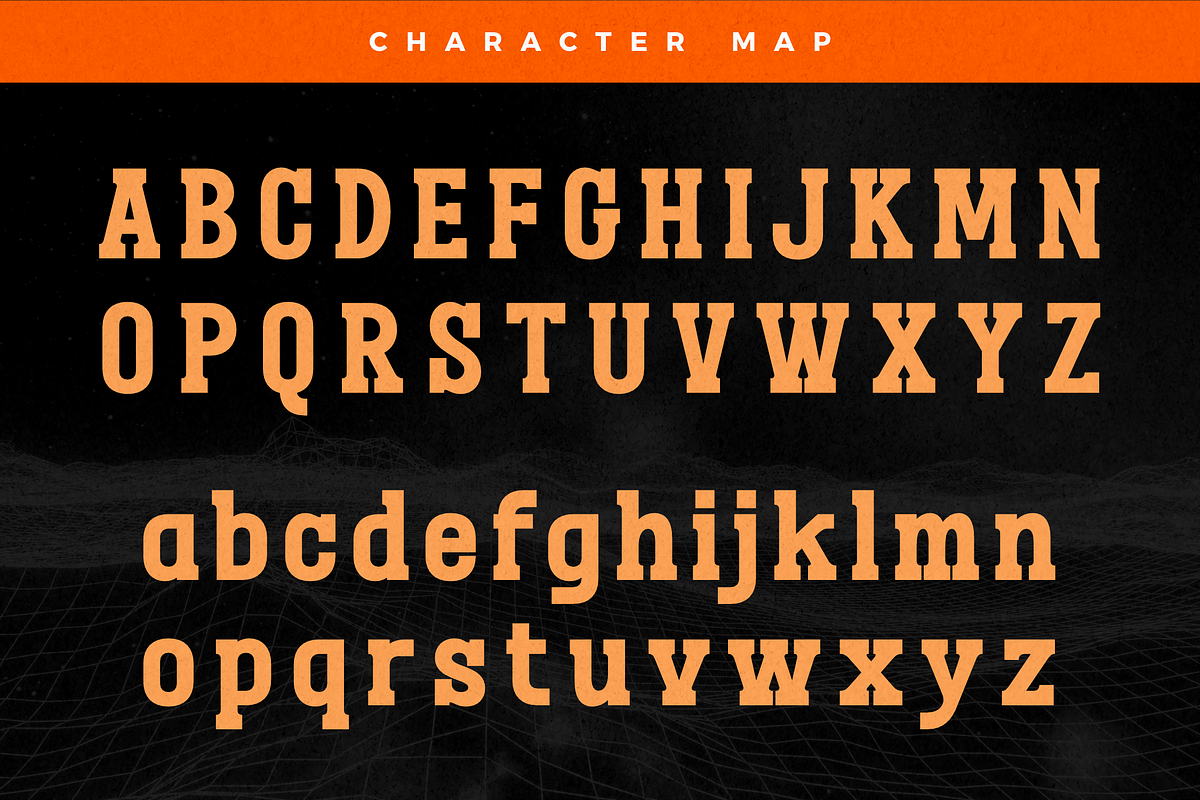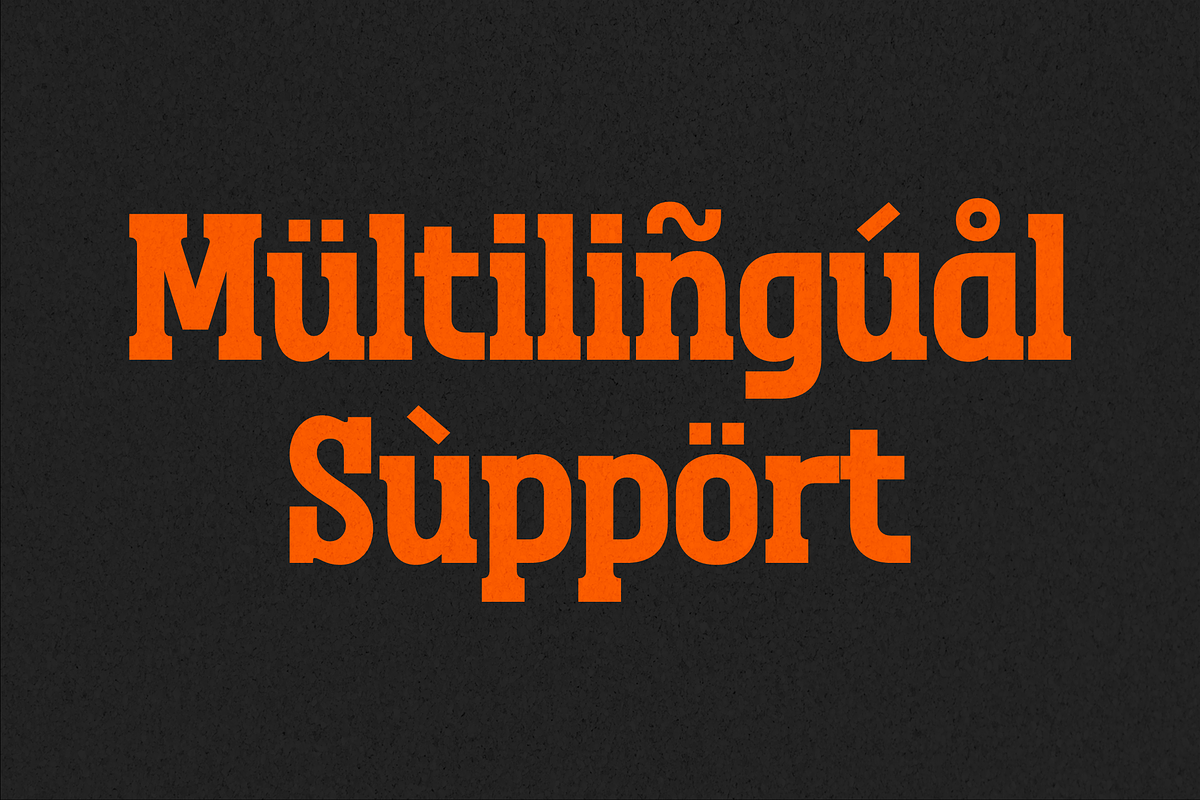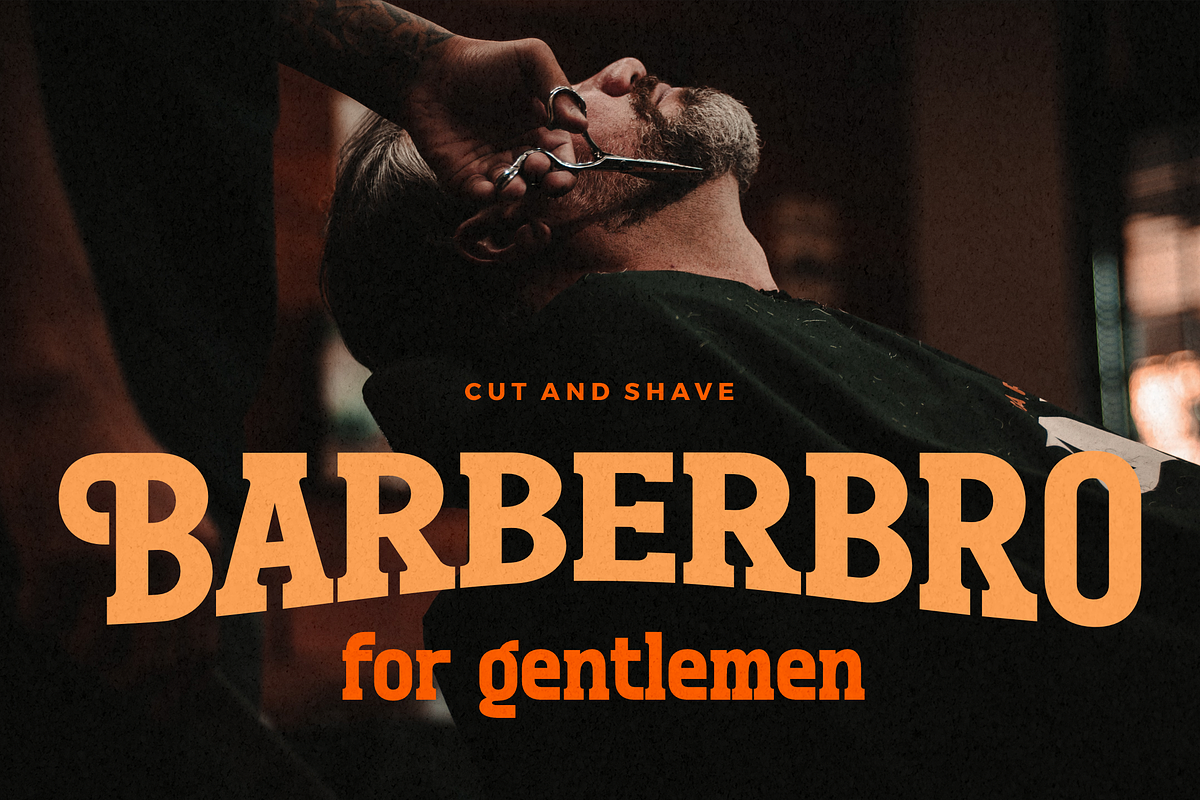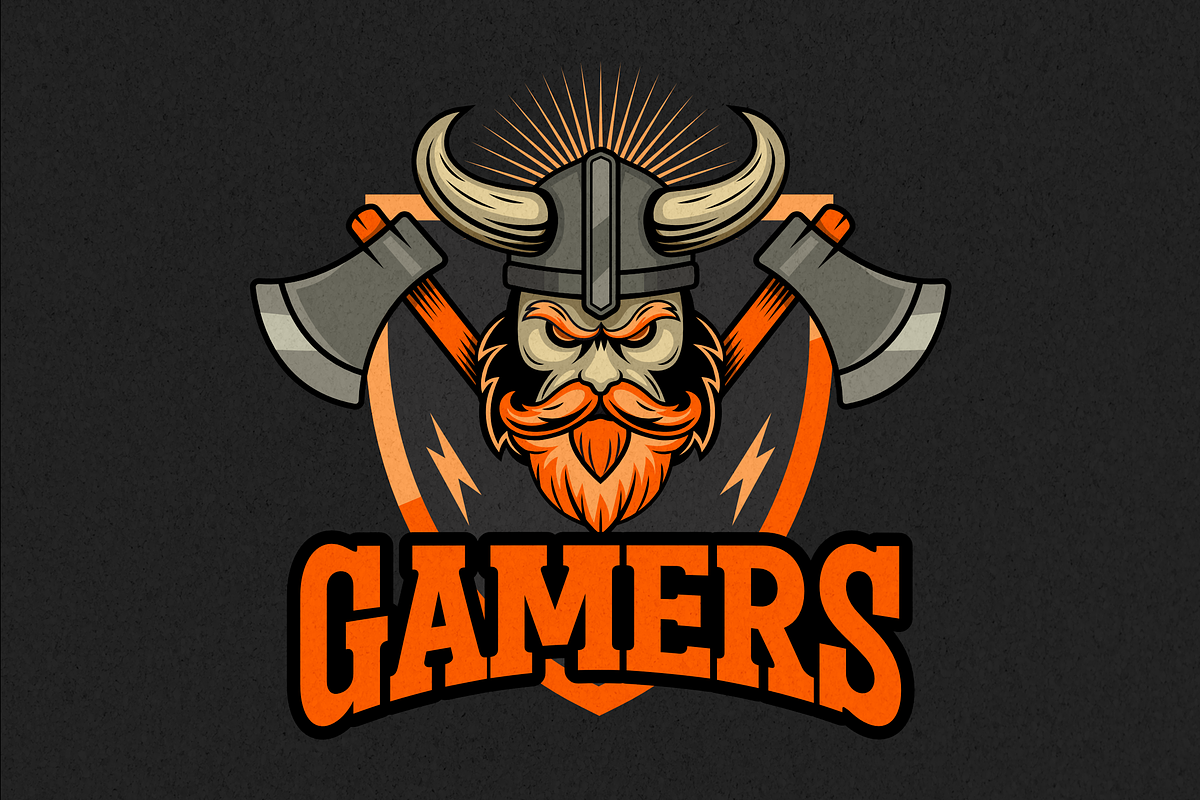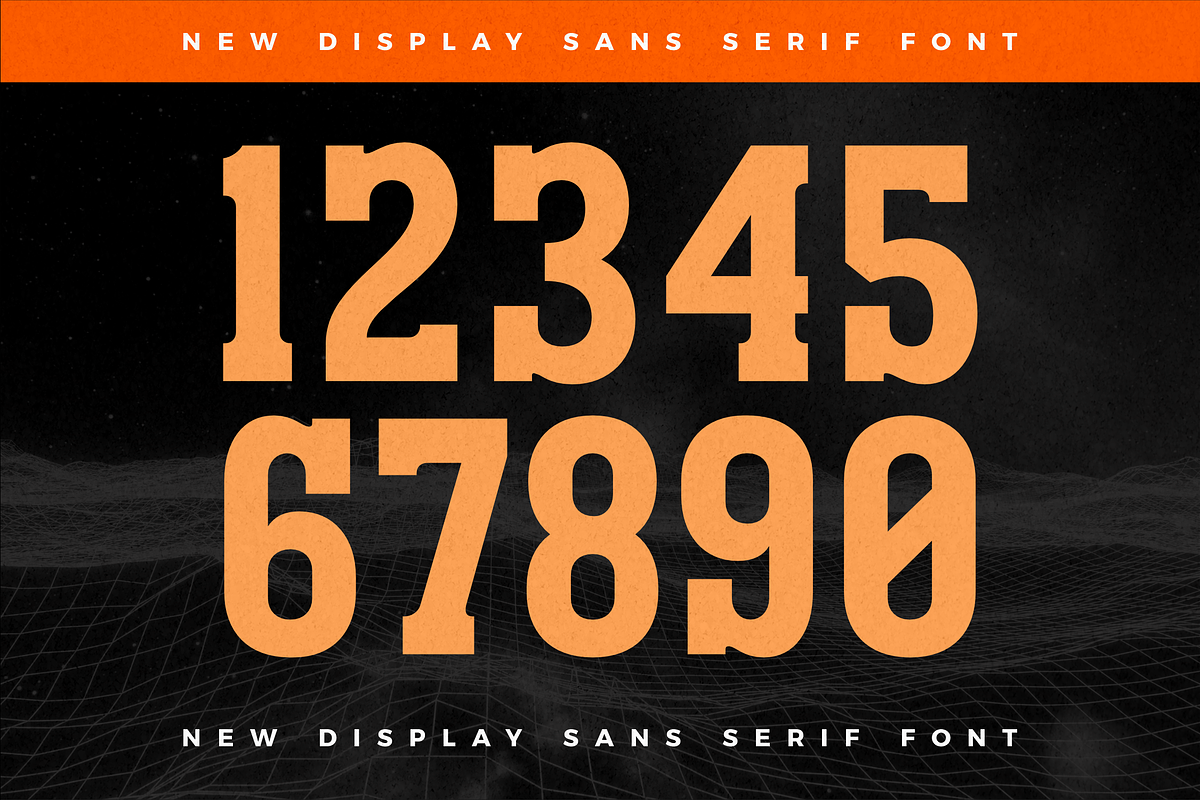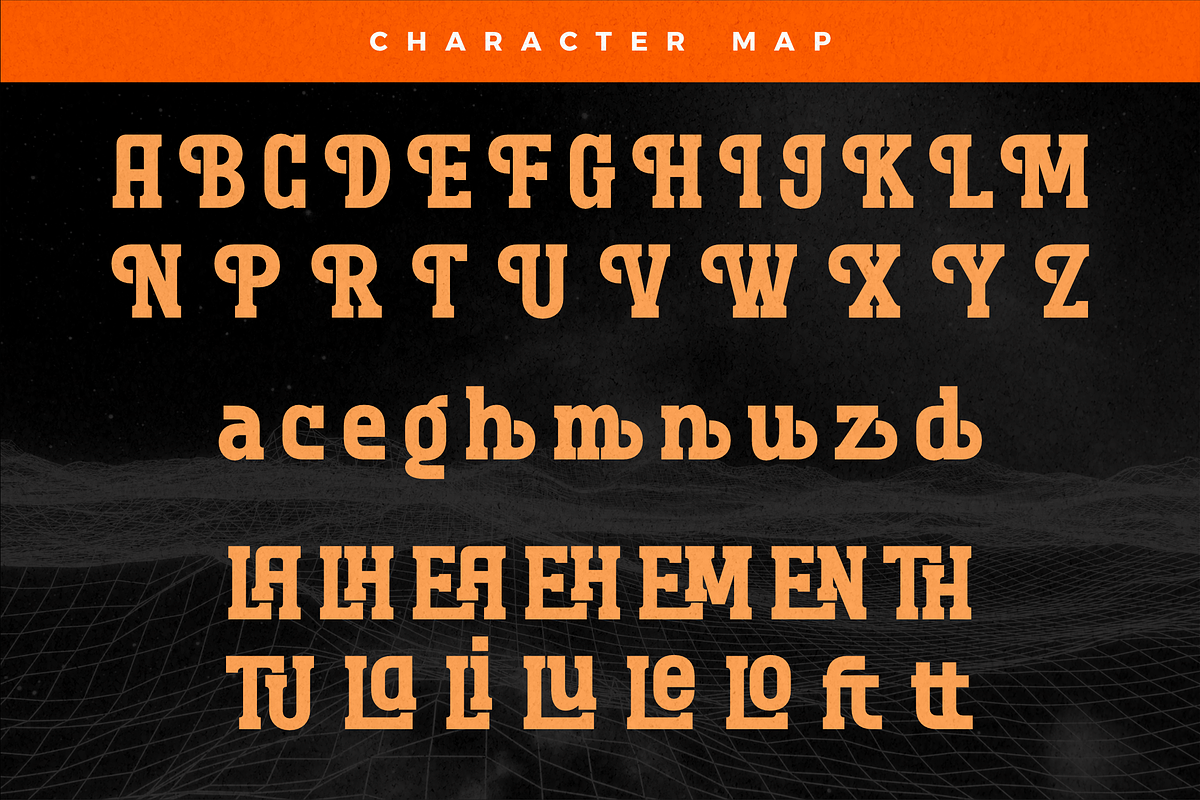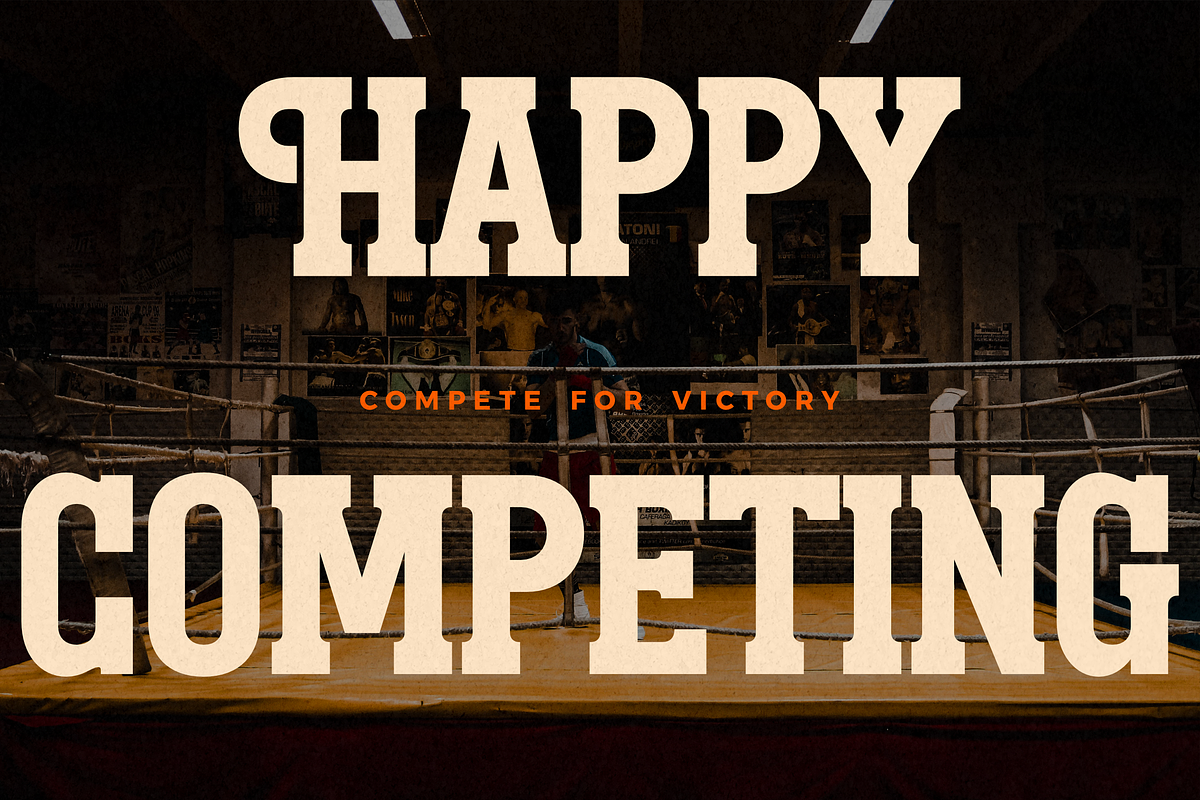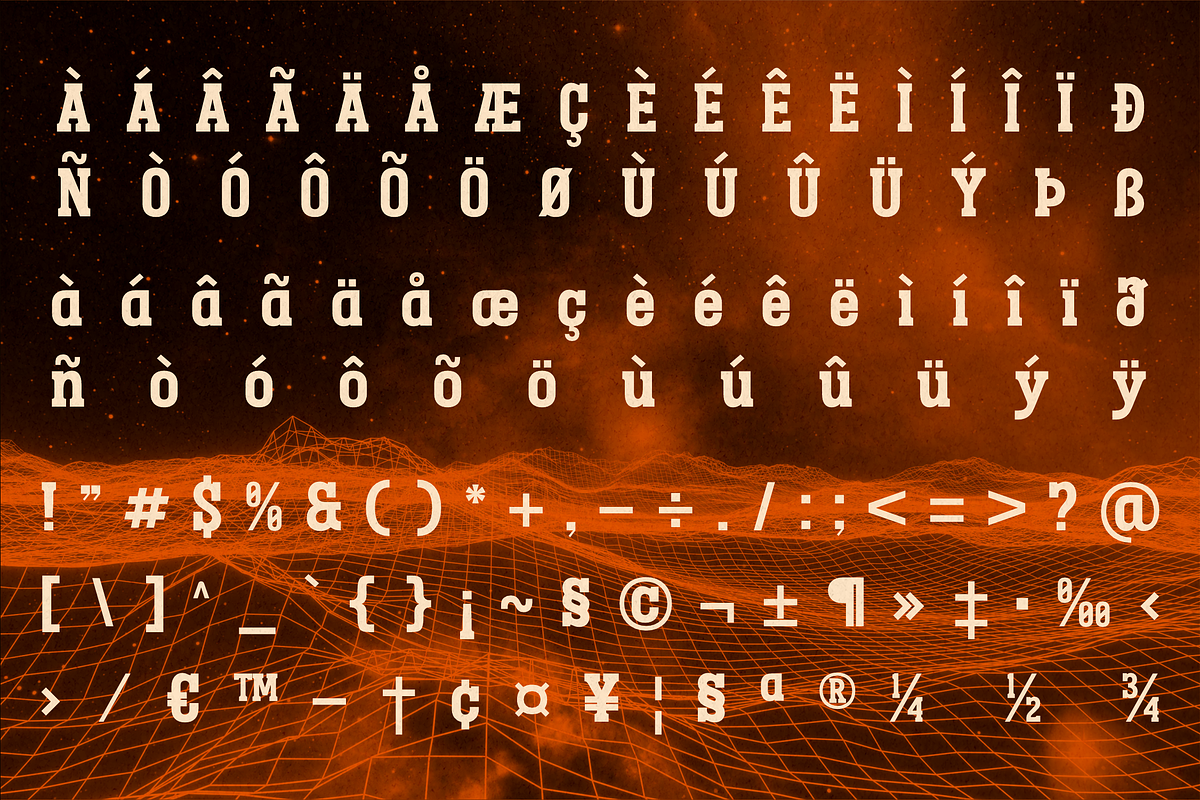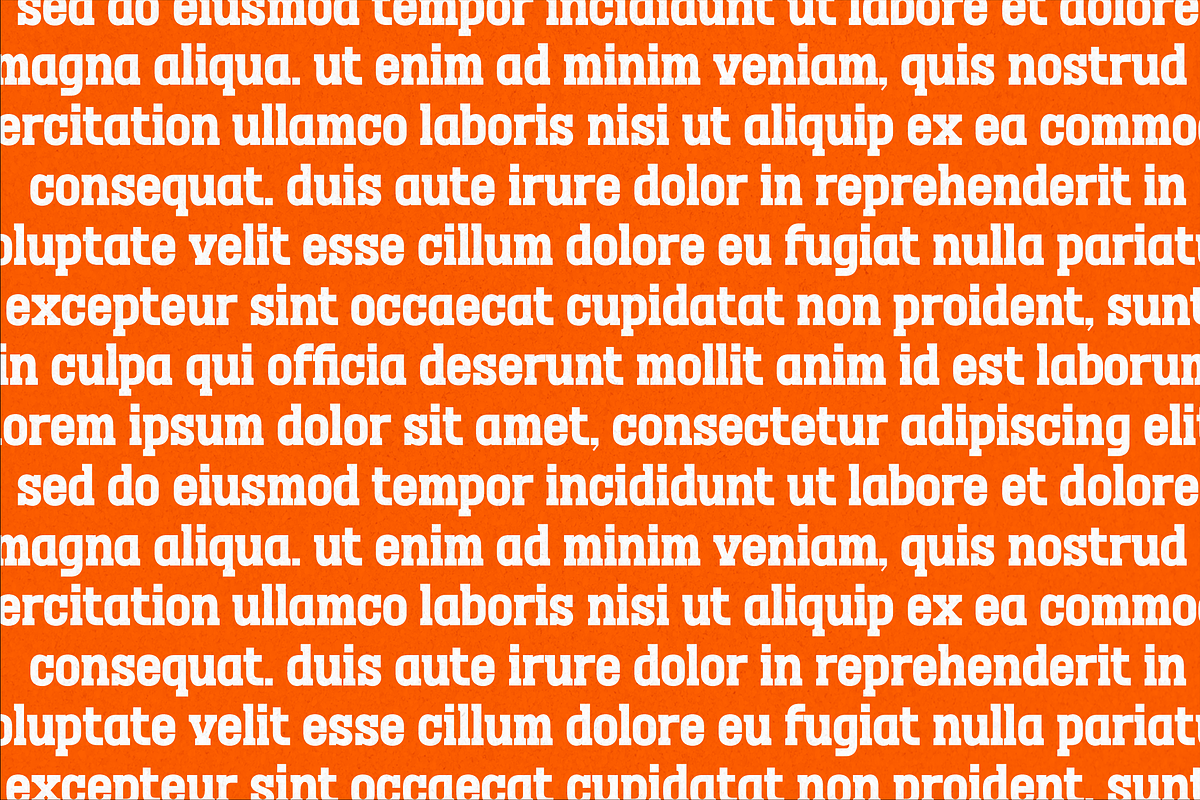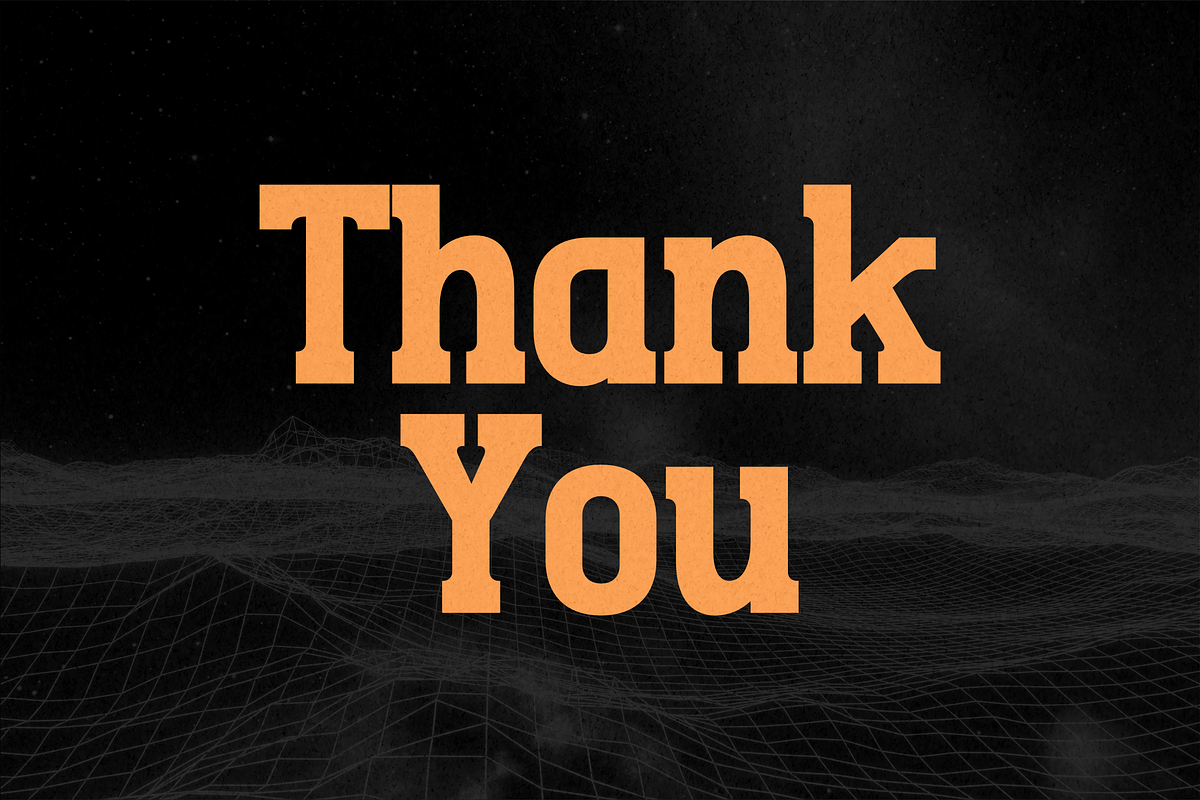
Megolan New Display Sans Serif Font
Proudly present Megolan Typeface , created by Storytype, A serif modern and classic typeface that has own unique style & modern look. This typeface is perfect for an elegant & luxury logo, book or movie title design, fashion brand, magazine, clothes, lettering, quotes, and so much more.